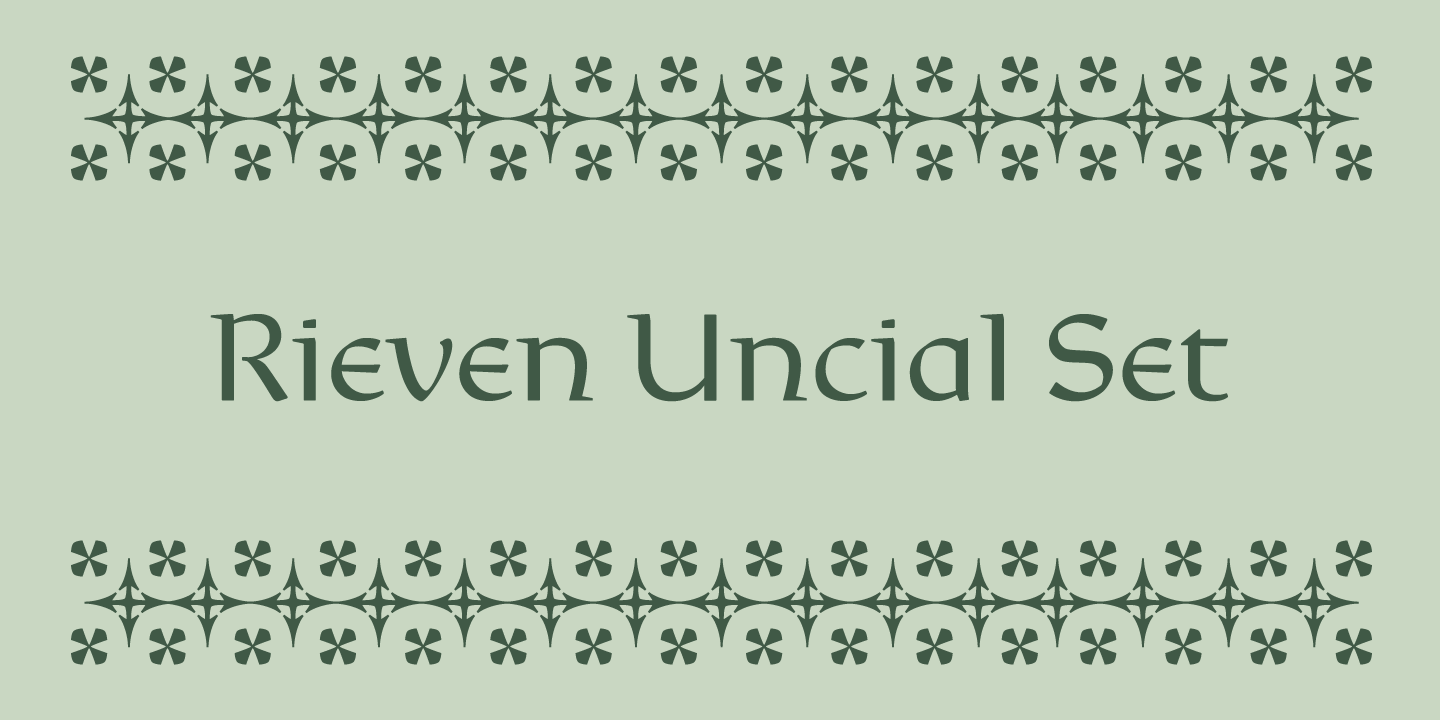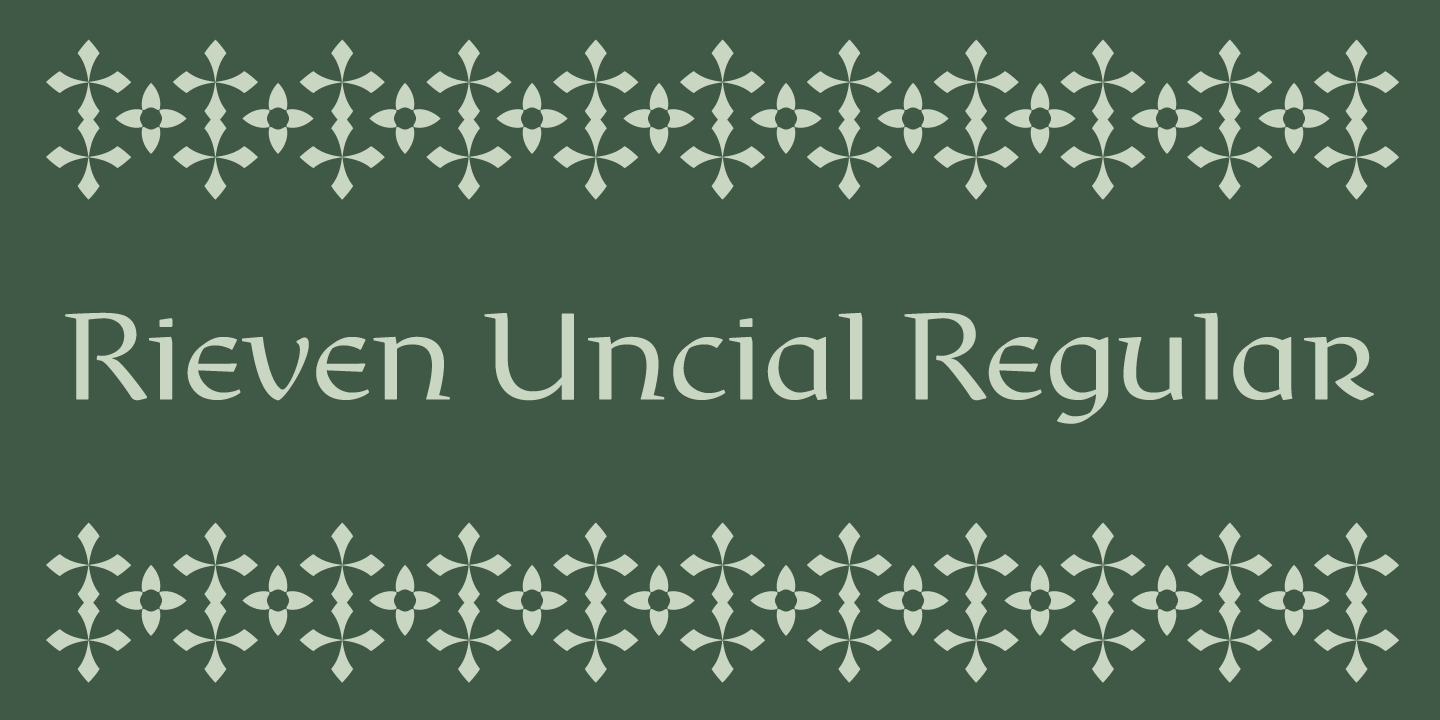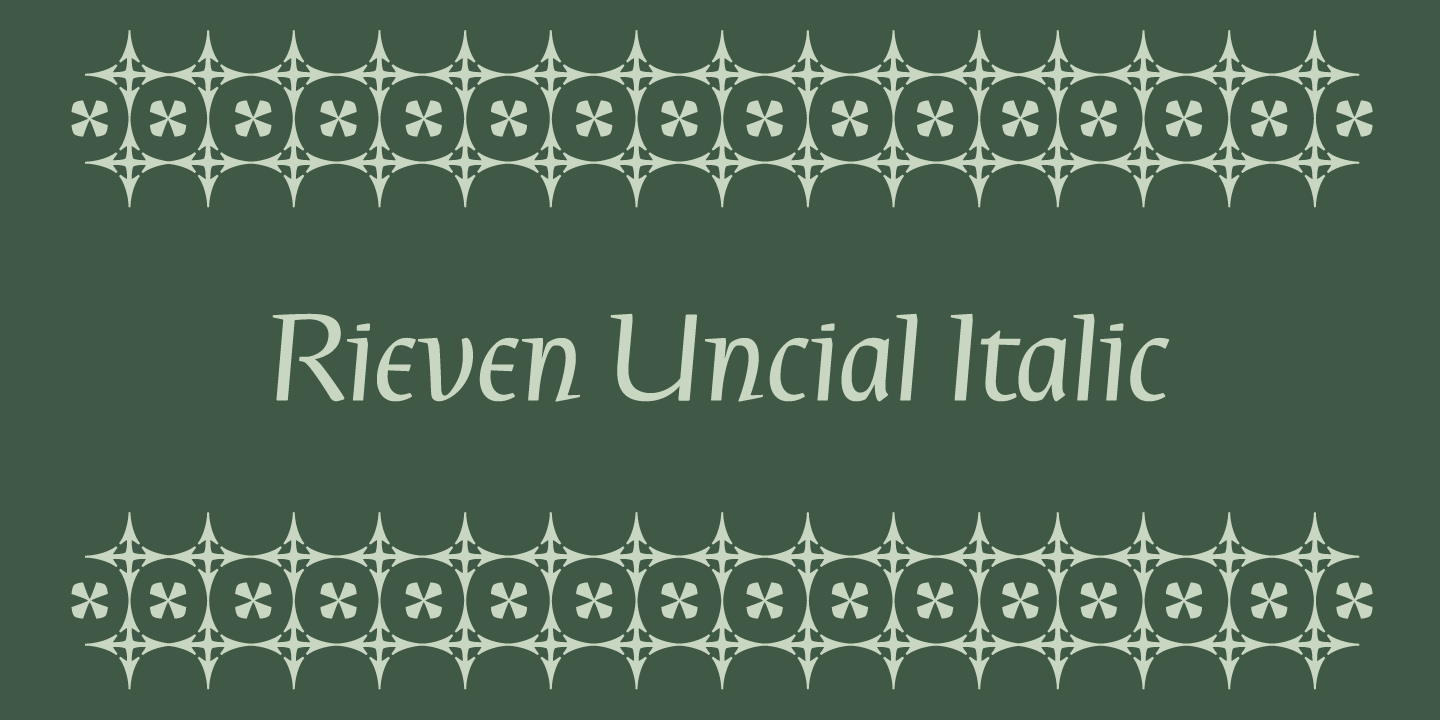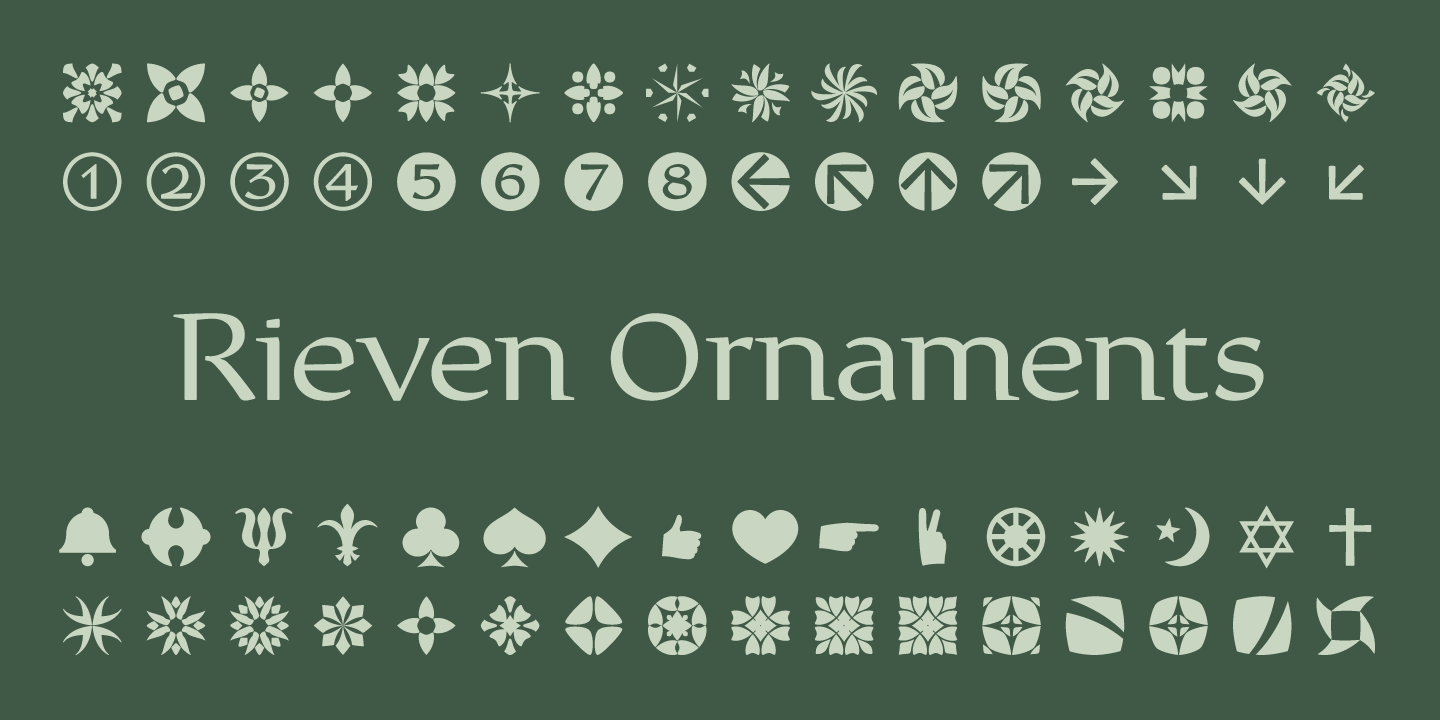
Rieven Uncial Set
If a sans serif roman and an uncial got together and had a type-baby, it would be Rieven Uncial. While it retains a richness and elegance found in traditional uncial forms, Rieven Uncial has been carefully tempered by designer Steven Skaggs to be much more versatile. The accompanying italic works perfectly well with its uncial cousin despite being structurally quite distinct from it.
Rieven Uncial looks great on books, packaging, and signage, or anytime there is a need for an exotic feel to text without being overly decorative.
Rieven Uncial was awarded a “Certificate of Excellence in Type Design” in the 2010 TDC2.